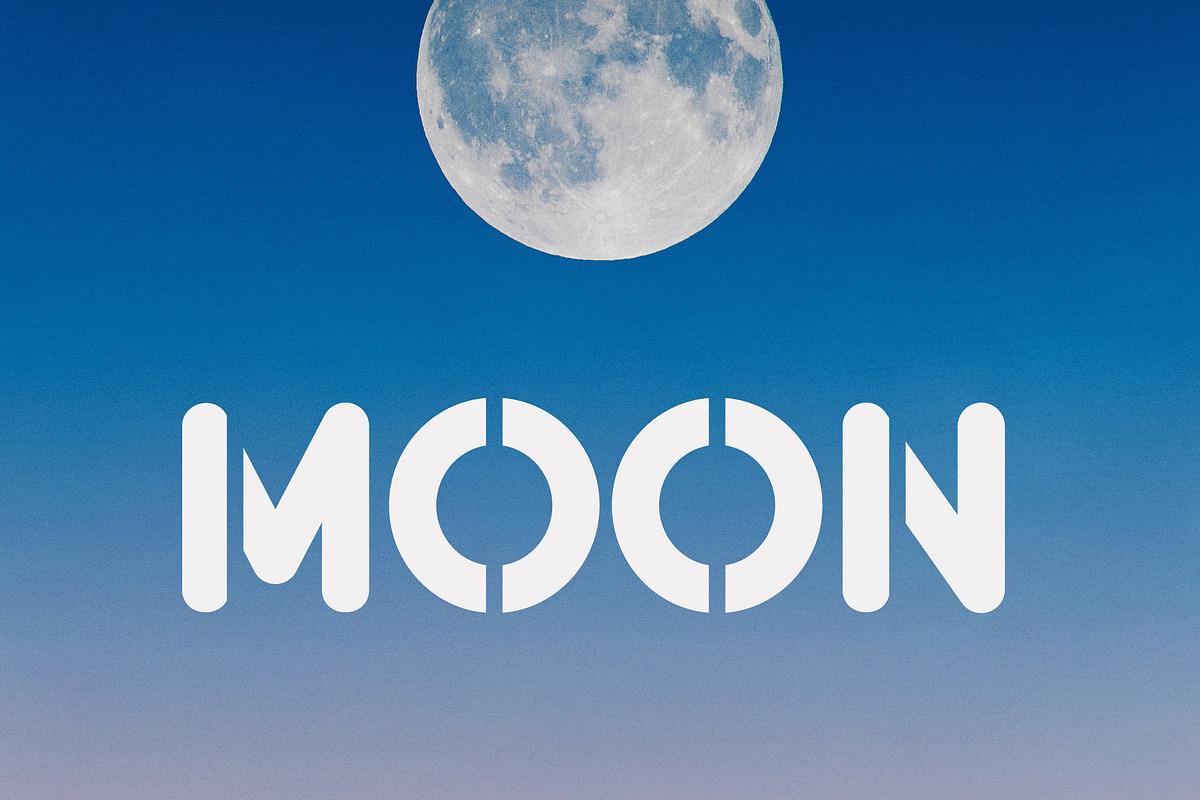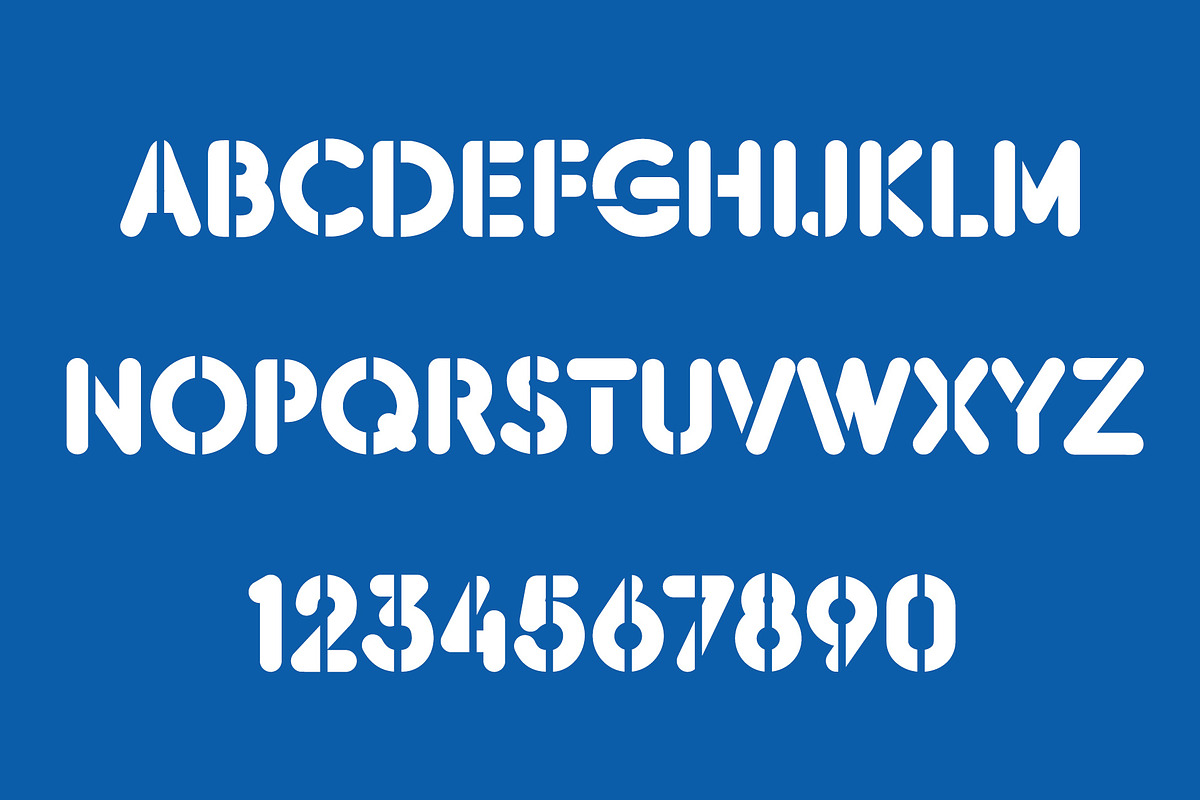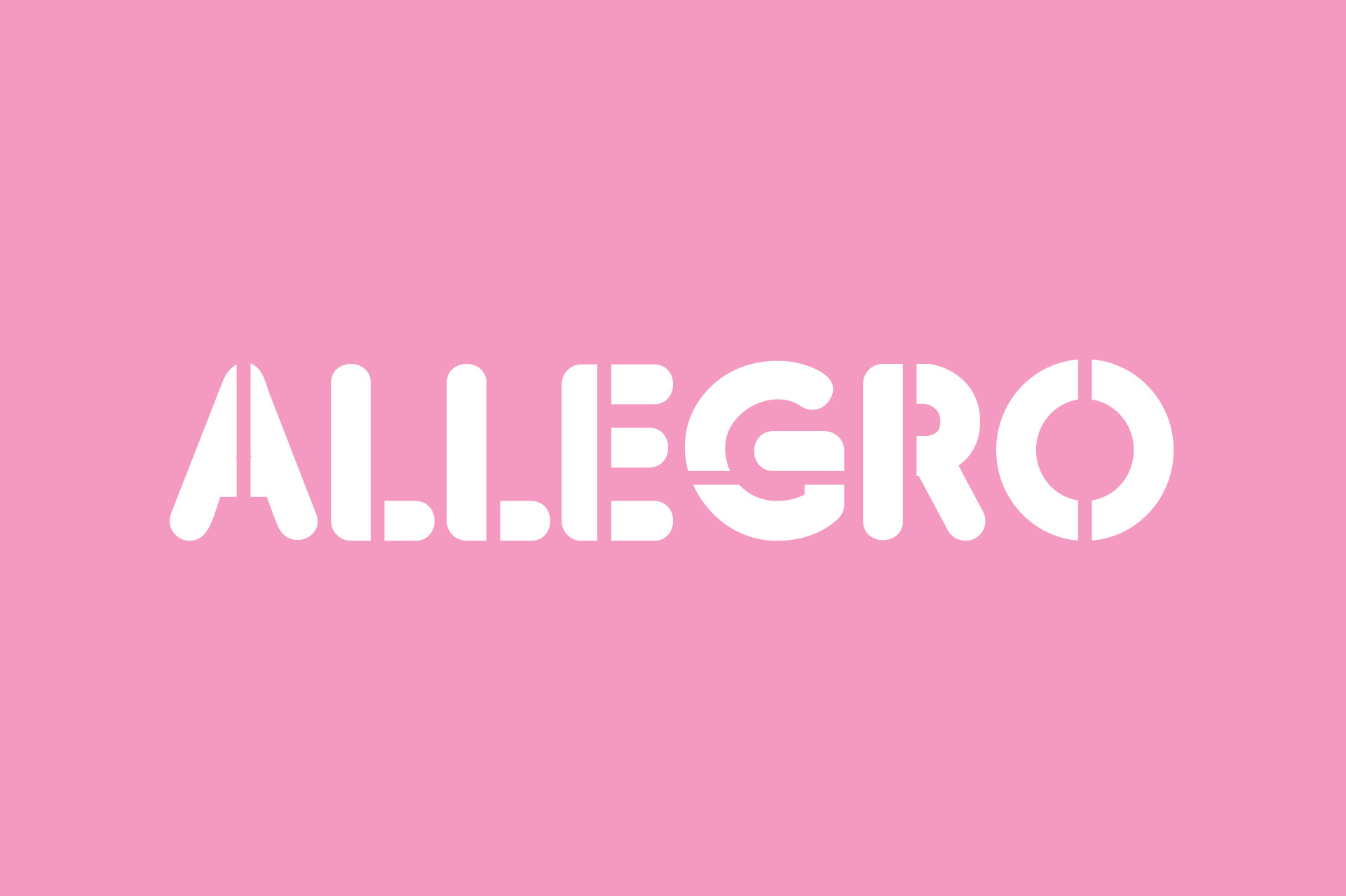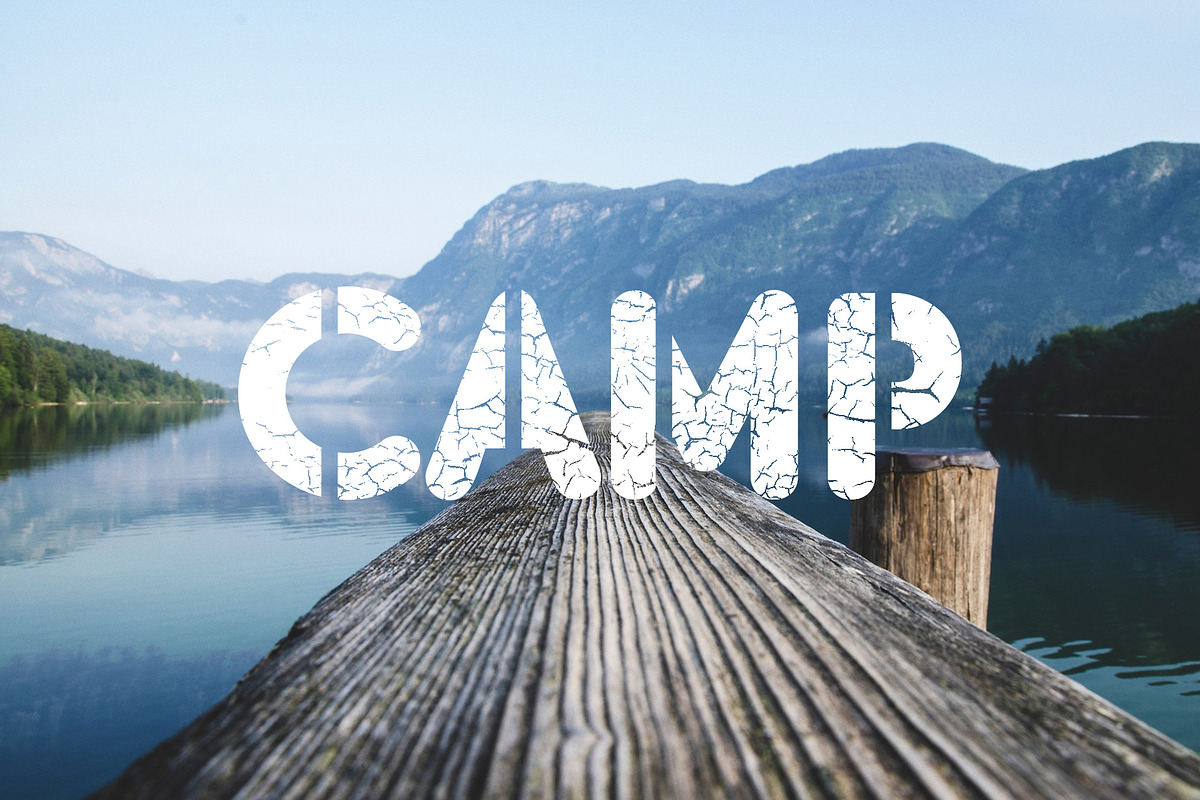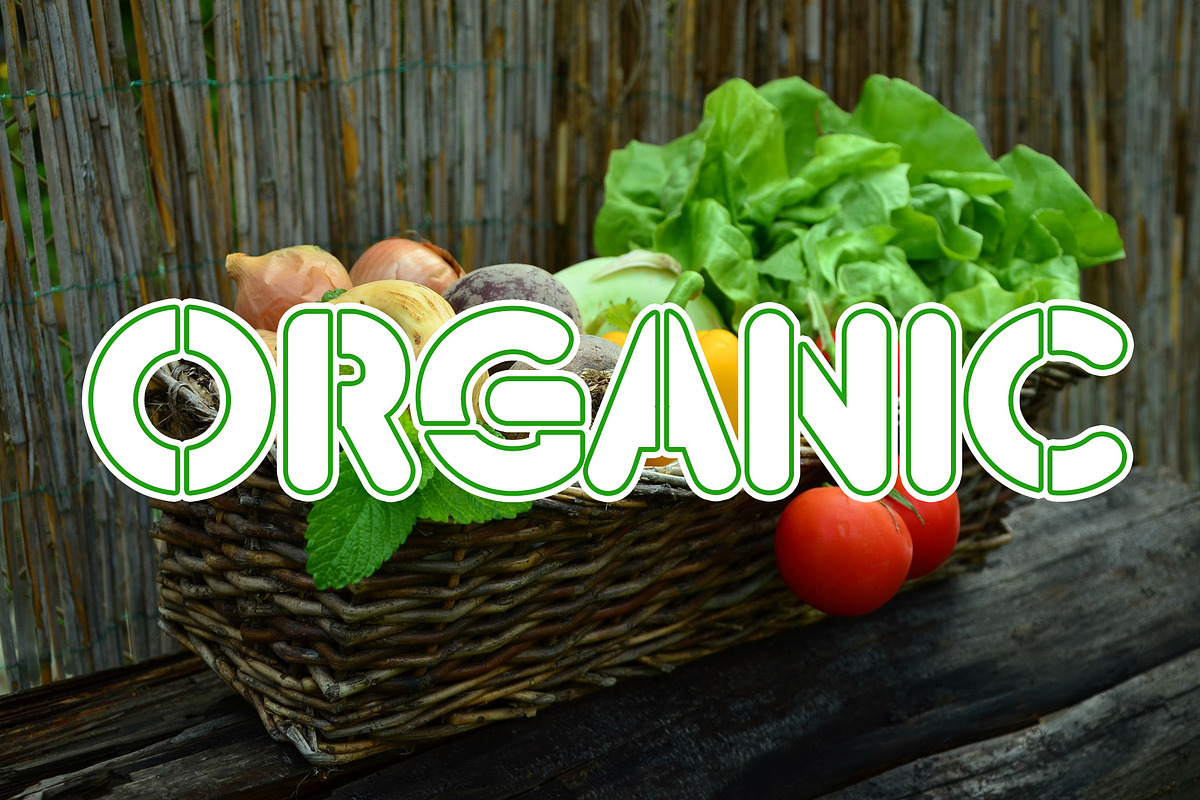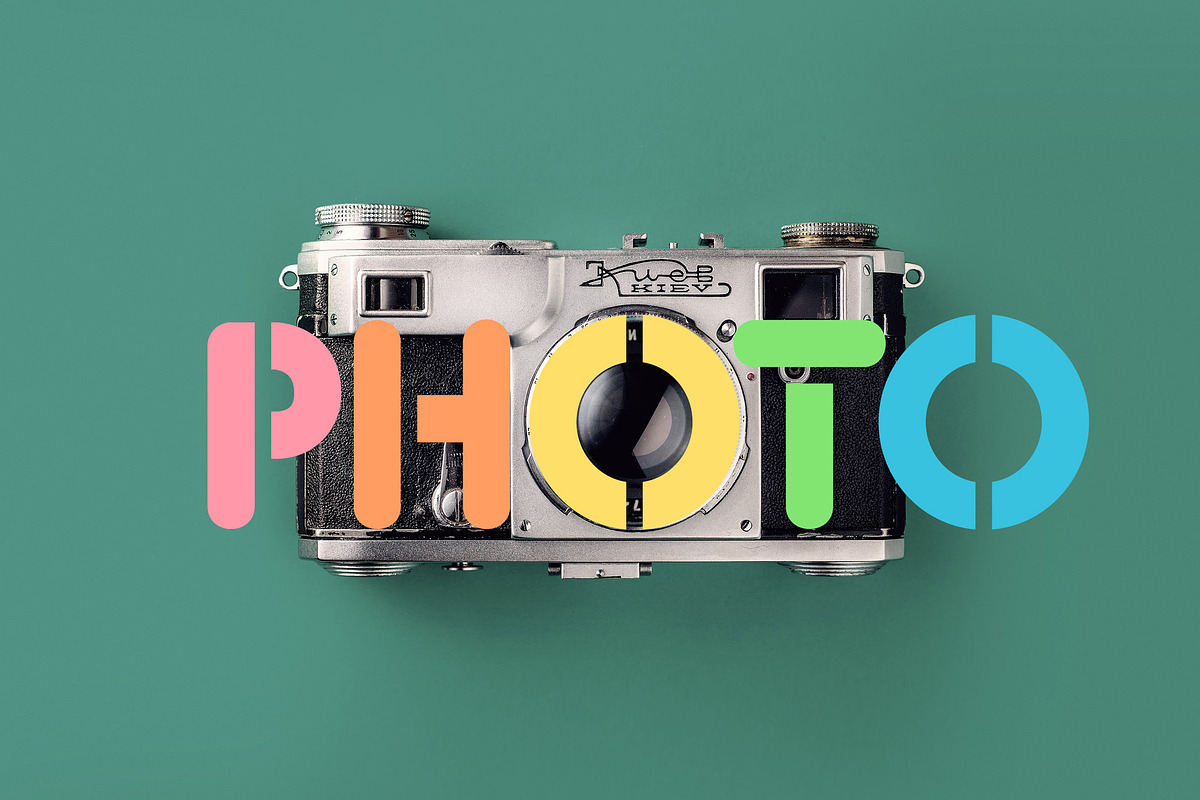
Allegro Round Stencil Logo Font
Allegro Bold Stencil Font.
Allegro is a cool, neat and minimalistic display font. It can easily be matched to an incredibly large set of projects, so add it to your creative ideas and notice how it makes them stand out!
It can be used for logos, posters, headlines, T-Shirts, laser cut craft and many more..